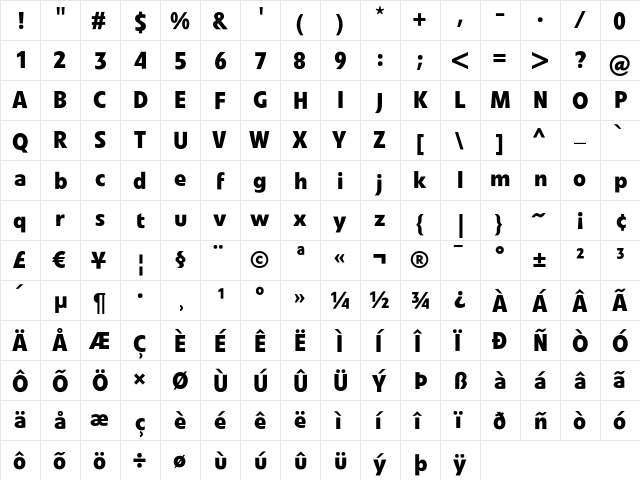
LinotypeVeto Bold
Design Context for LinotypeVeto Typeface
LinotypeVeto is a composed and adaptable typeface that performs quietly and consistently across a wide range of design contexts. The heavy weight commands attention and anchors typographic hierarchies.